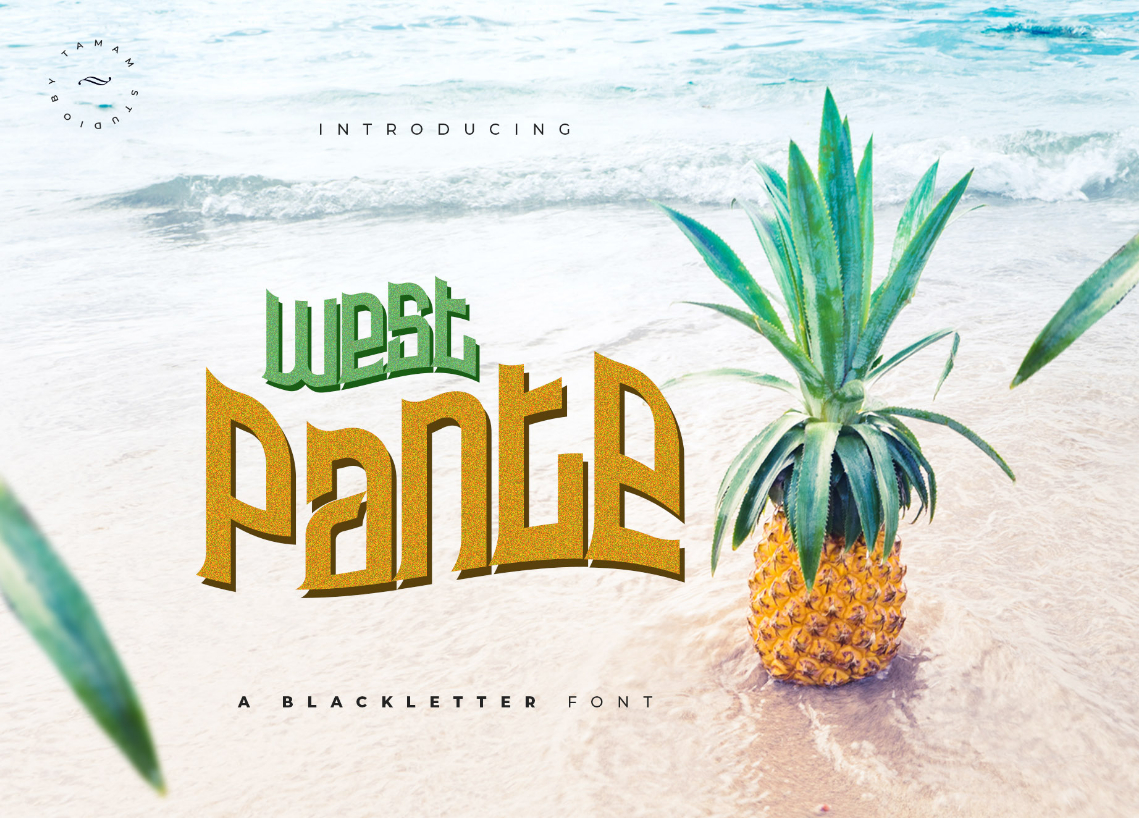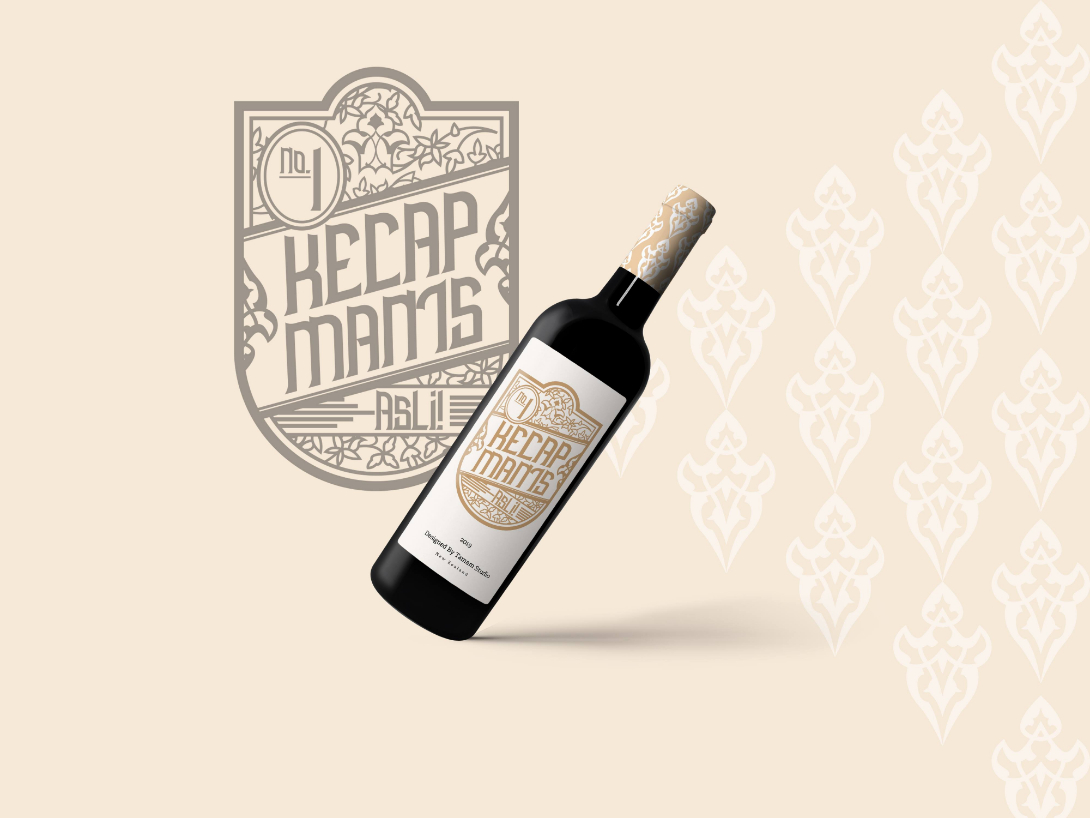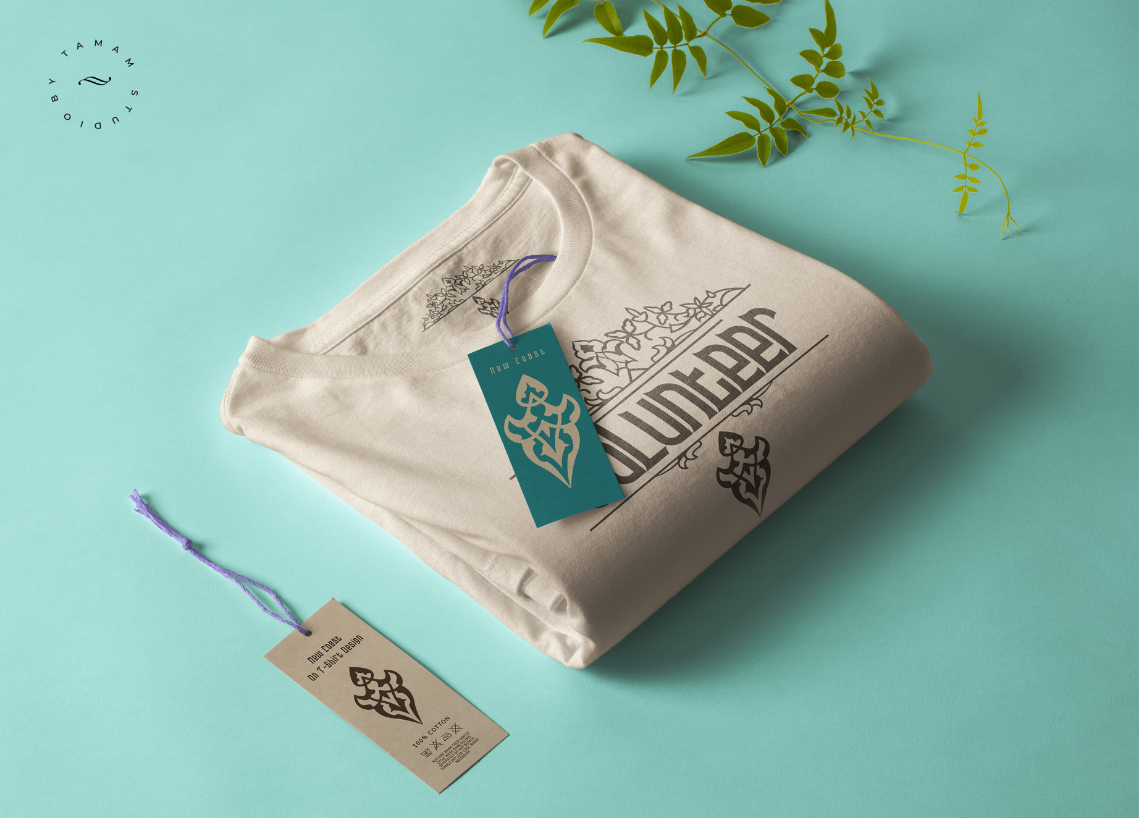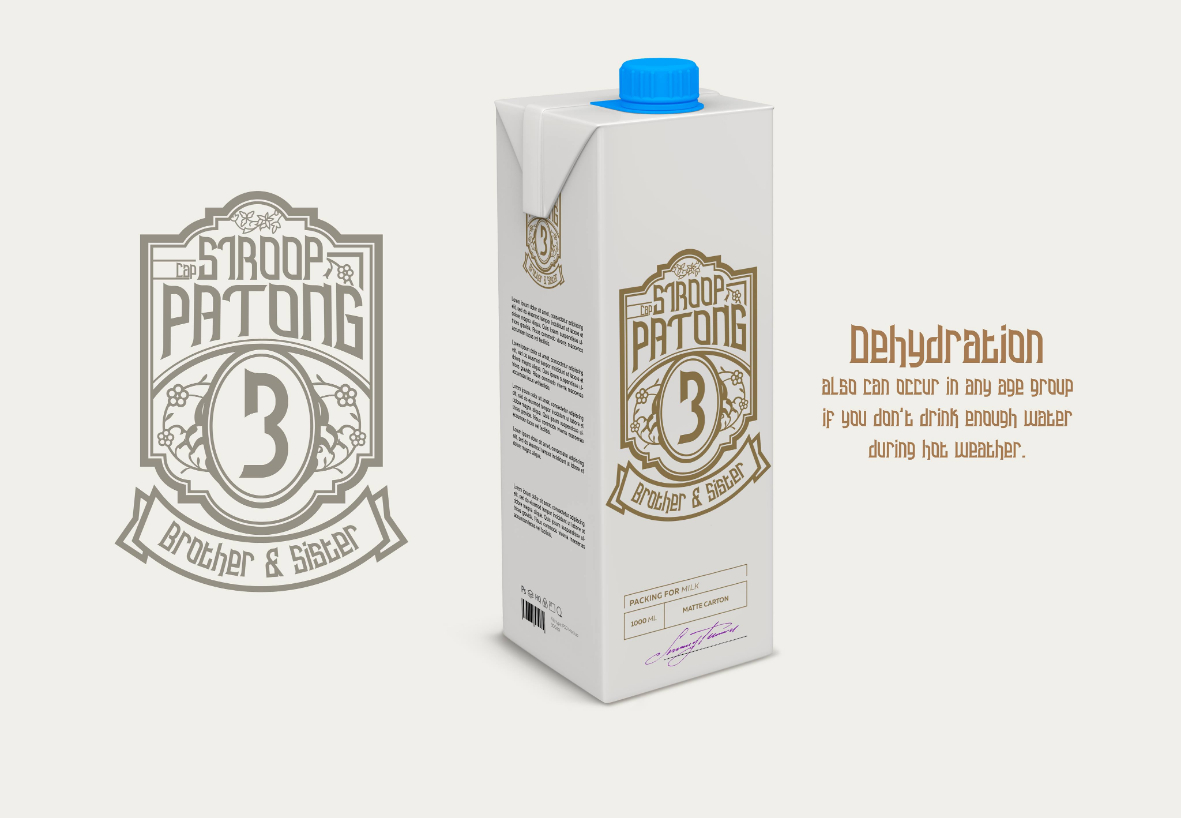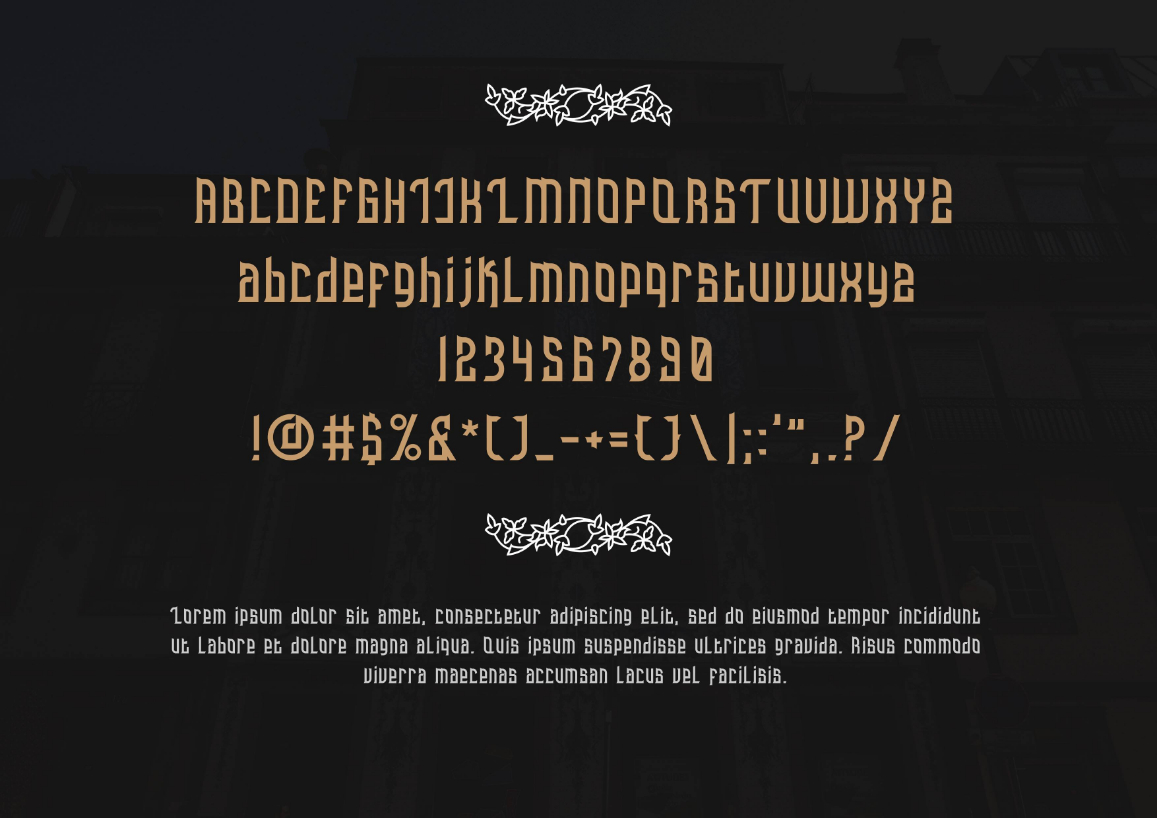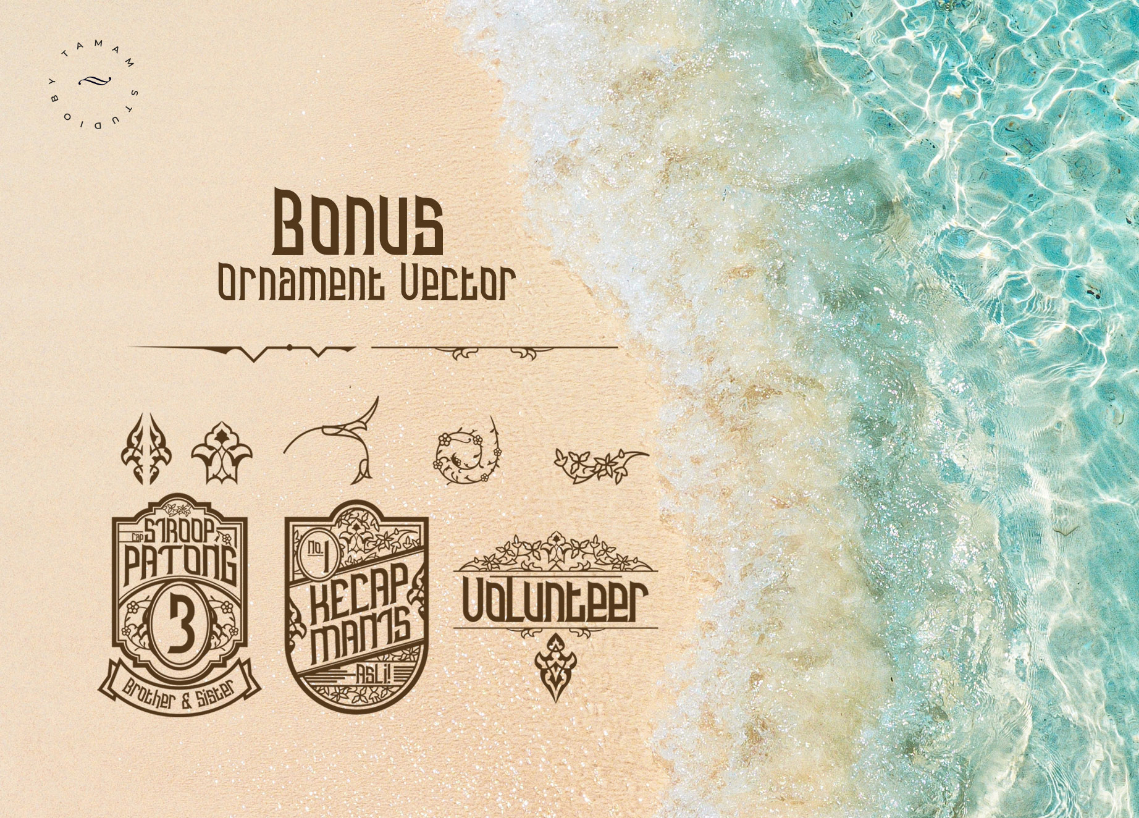
West Pante Font
About West Pante Font
West Pante is a versatile, light and fun font for a huge variety of design occasions. Use it to add a bold feel to any creative project!